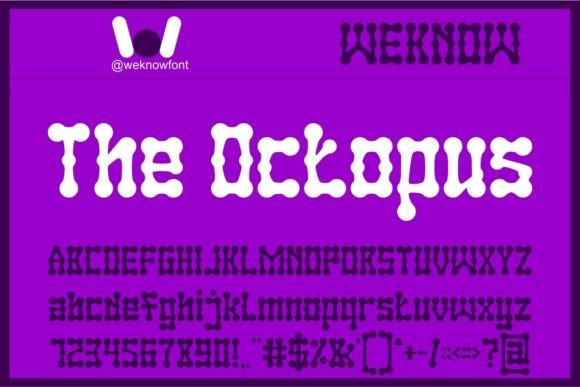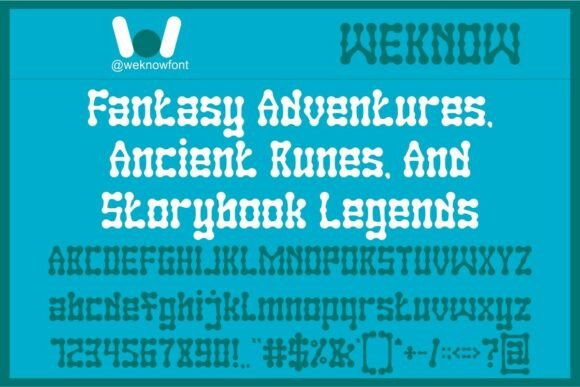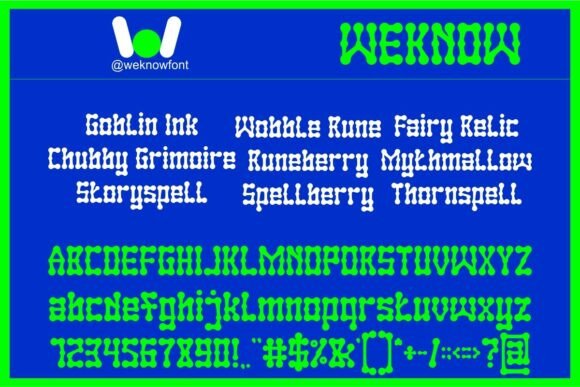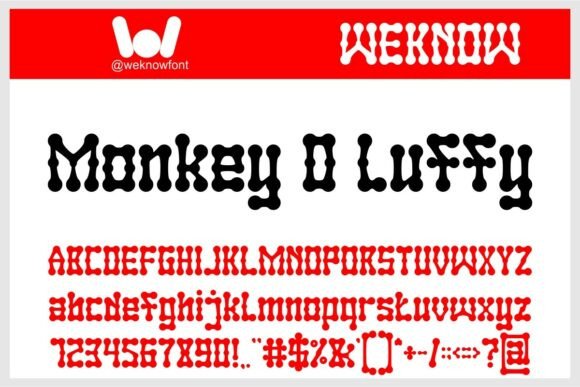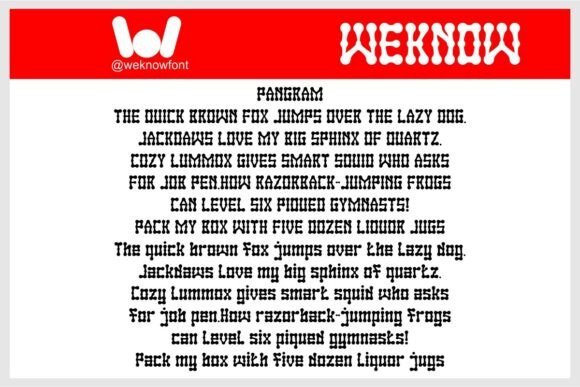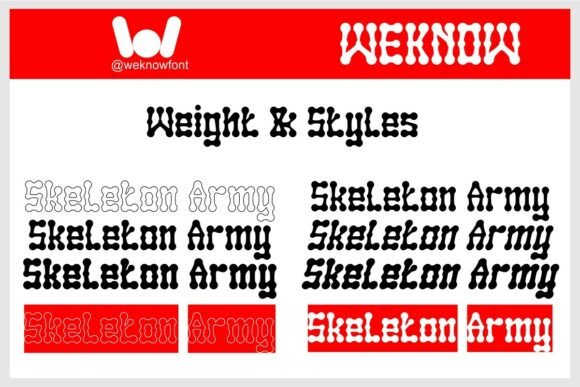
Introduction to Skeleton Army Font
Imagine you’re brainstorming ideas for your next creative project, and you need the perfect font to transport your audience to a world of fantasy and adventure. You scroll through your design resource library, searching for the perfect combination of whimsy and elegance. Suddenly, you stumble upon Skeleton Army Font – a game-changing hybrid of bubble blackletter and fantasy display that’s about to revolutionize your design workflow.
With Skeleton Army Font, you’ll have the power to infuse your creative projects with a touch of medieval charm, perfect for logos, headlines, and brand identities that demand attention. Its unique blend of gothic influences and storybook serifs makes it a high-quality design asset that’s ready to shine on print, digital, or even apparel. And the best part? You can download it for free, making it an ideal addition to your design arsenal.
Whether you’re a seasoned designer or a newcomer to the world of creative typography, Skeleton Army Font is an invaluable resource that will help you stand out in a crowded market. So why wait? Dive into the world of Skeleton Army Font and discover the endless possibilities it has to offer.
Skeleton Army Font
- Designed with a unique, edgy aesthetic that’s perfect for horror, gothic, or steampunk-themed projects
Honest Review: Skeleton Army Font
I recently stumbled upon the Skeleton Army Font, a unique and quirky design resource that caught my attention. The font features a transparent background, making it perfect for creative projects that require a touch of elegance and sophistication.
- High quality design: The Skeleton Army Font is well-crafted, with clean lines and a consistent aesthetic.
- Perfect for creative projects: The font’s transparent background and unique design make it ideal for creative projects, such as graphic novels, comics, and even horror-themed designs.
- Limited versatility: The font’s unique design may not be suitable for all types of projects, such as corporate or professional designs.
- May require customization: Depending on the project, the font may require additional customization to fit the desired aesthetic.
Overall, I’m impressed with the Skeleton Army Font. It’s a high-quality design resource that’s perfect for creative projects. While it may have some limitations, the font’s unique design and transparent background make it a valuable addition to any designer’s toolkit.
Skeleton Army Font
The Skeleton Army Font is a unique and versatile design resource that offers a high-quality, free download for creative projects. Its transparent background allows for seamless integration with any design element.
The Skeleton Army Font is ideal for creating spooky-themed designs, such as Halloween graphics and invitations. It’s also great for adding a touch of whimsy to children’s party invitations and decorations.
To get the most out of the Skeleton Army Font, experiment with different font sizes, colors, and combinations to create unique and eye-catching designs. You can also use it in conjunction with other design elements, such as images and graphics, to add depth and interest to your designs.